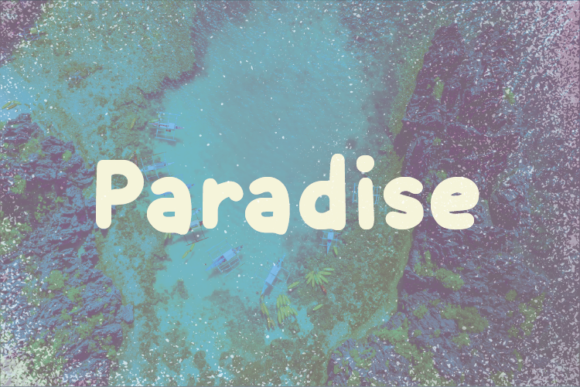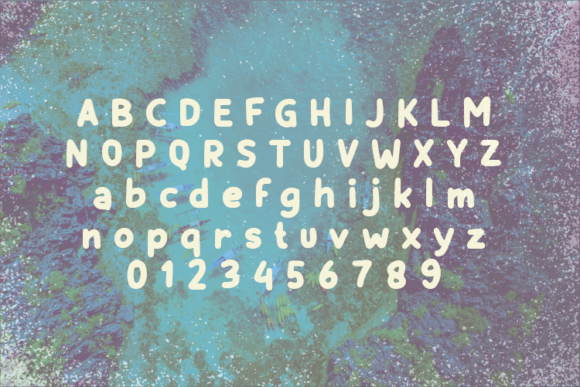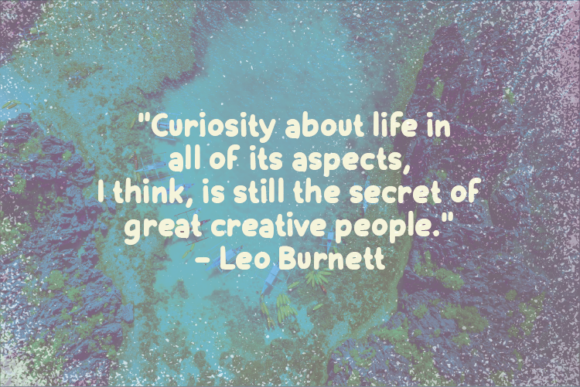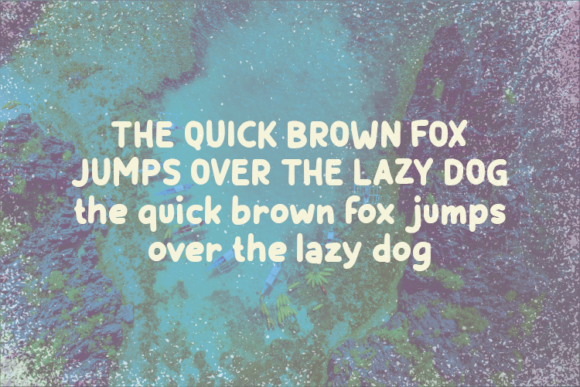
About Paradise Font
Paradise is a natural handwritten font without changing a single node in each character’s indentation, this makes this font very interesting and unique. Perfect for quotes, notes, tees, and any product design.